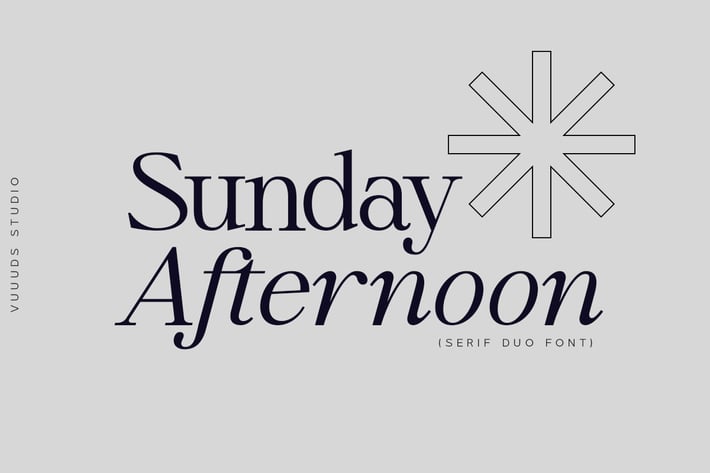
Sunday Afternoon Font
Introducing Sunday Afternoon Font!
Sunday Afternoon is modern serif font came with regular and italic styles. every single letters have been carefully crafted.
Foreign languages support: ÀÁÂÃÄÅÆÇÈÉÊËÌÍÎÏÐÑÒÓÔÕÖØÙÚÛÜÝàáâãäåæçèéêëìíîïðñòóôõöøùúûüýÿ